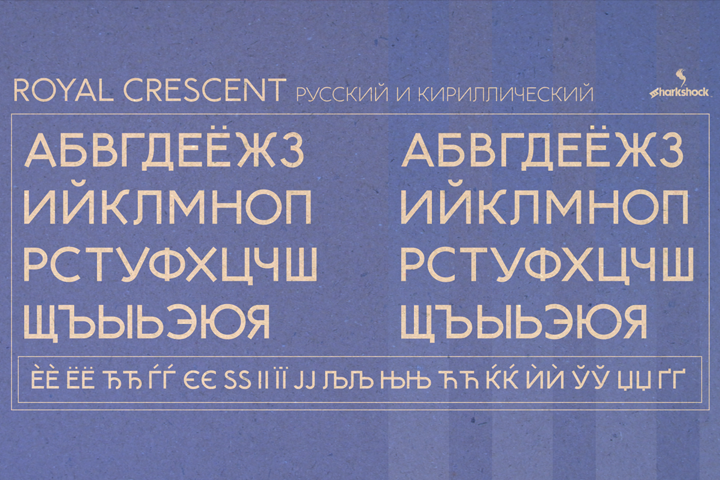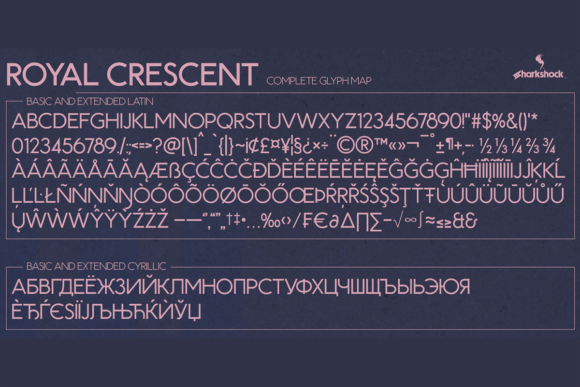
Introduction to Royal Crescent Font
Royal Crescent is an all-caps display sans with elegance and simplicity in mind.
Its uniform width and clean strokes are consistent throughout creating low contrast in all 3 versions Even at its heaviest weight, the characters arenโt particularly bold.
Key Features of Royal Crescent Font